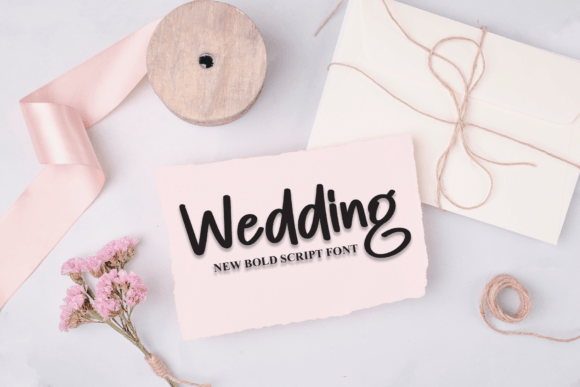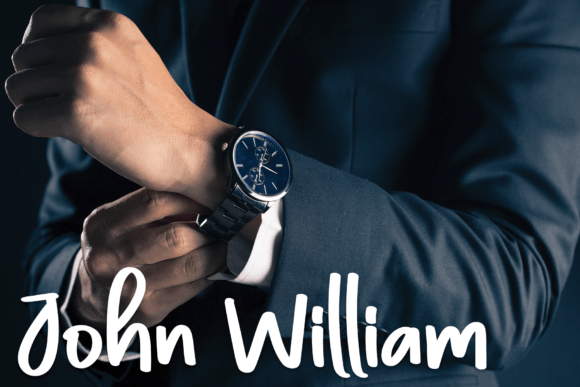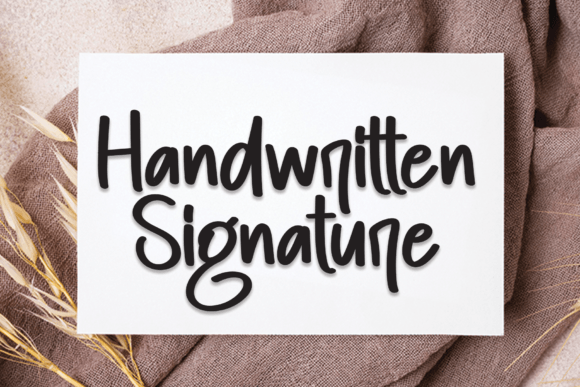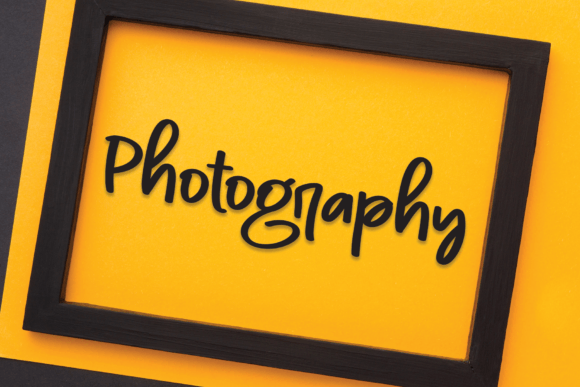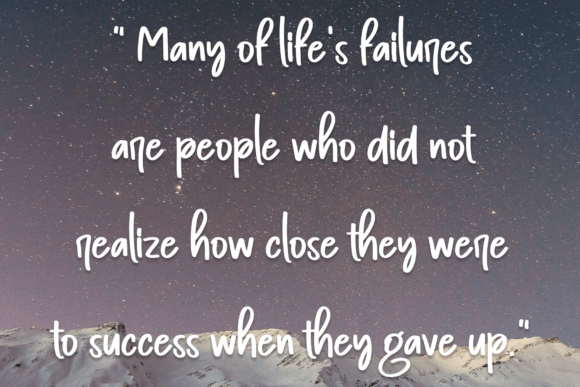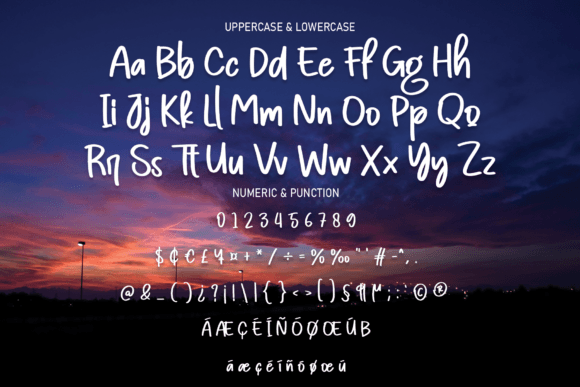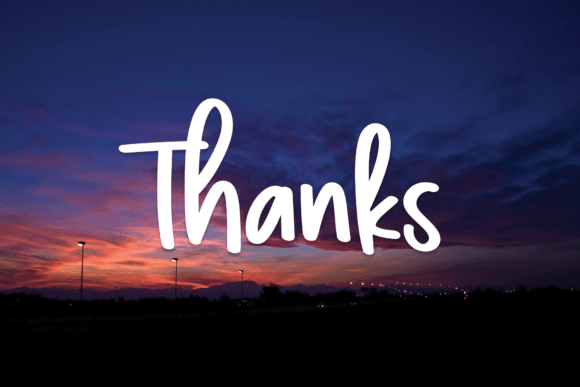
Hello Night Font
About Hello Night Font
“Hello Night’s” latest style letters offer a perfect solution for various design needs, thanks to their versatile and contemporary aesthetic. These letters are well-suited for a wide range of applications, making them an excellent choice for wall displays, wedding invitations, social media post logos, advertisements, product packaging, product designs, labels, photography watermarks, invitations, stationery, and any project that benefits from a handwritten touch.
The appeal of “Hello Night’s” latest style letters lies in their ability to convey a sense of modernity and personalization. Each character is thoughtfully designed to exude a contemporary and stylish flair, making it an ideal choice for projects where you want to create a visually appealing and unique impression. Whether you’re working on digital or print materials, “Hello Night’s” letters offer a versatile and stylish script that adds a touch of sophistication to your content.
For personal branding, product designs, promotional materials, and a wide range of design applications, “Hello Night’s” latest style letters provide the creative freedom to make your projects stand out. Their contemporary handwritten style can enhance the visual appeal of your designs and effectively convey your message to your audience.
In summary, “Hello Night’s” latest style letters are a valuable font choice that brings modernity and personalization to your creative work. Their contemporary style and versatility make them suitable for a variety of applications, and their ability to convey uniqueness and sophistication sets them apart. With “Hello Night’s” latest style letters in your font collection, your design projects will exude a sense of modern style and individuality that leaves a lasting impression.